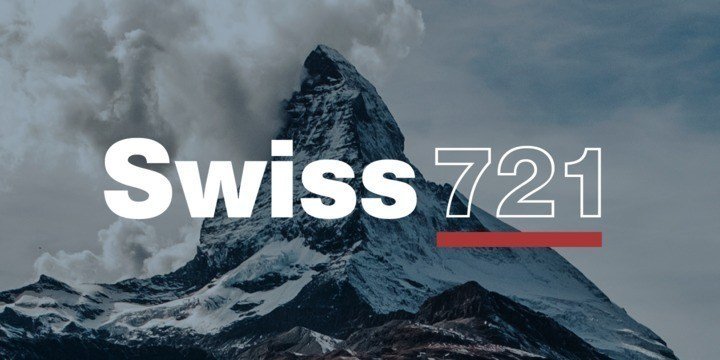
The Swiss 721 BT Font was designed by Max Miedinger and was introduced in 1982. This sans-serif typeface is known for its ability to give content a clean and modern appearance.
This is a roman typeface which is famous for its condensed black typeface this typeface with the use of helvetica font provide great clarity to the design make this more beautiful and impactful.
View of Swiss 721 BT Font
Before moving ahead, let’s have a look at the appearance of this font that how does it will appear when you apply it to your graphic design.
Due to its clean and clean texture, you may easily use this outstanding font for the ambitious heading, ebook covers, brand designs, cloth printing, official cards, precise emblems, and so on.
- Wall murals
- Presentations
- Brochures (print and digital)
- Public transportation navigation
- Tutorial videos
- Apps
- Brochures (print and digital)
- GIFs
- Theme design
- Newsletters
| Name | Swiss 721 BT |
| Style | Grotesque sans-serif |
| Designer | Max Miedinger |
What Type of Font Is Swiss 721 BT?
Swiss 721 BT is one of the best sans serif font that is developed by Max Miedinger in the year of 1982.
What’s the Closest Font to Swiss 721 BT?
The avenir next font is very close to the Swiss 721 BT font.